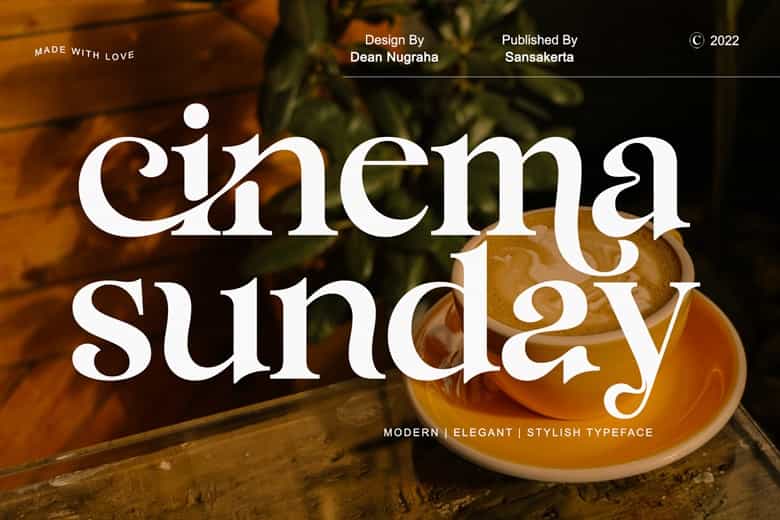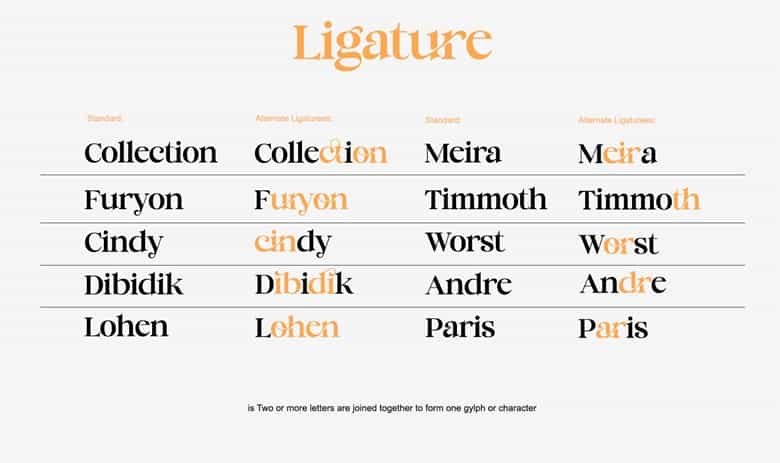
Cinema Sunday is a minimalist elegant modern serif typeface with beautiful ligatures, extra special alternative glyphs, ornament, multilingual support, and a film theme. It is a very flexible font which can easily be used both for large format and small ones.